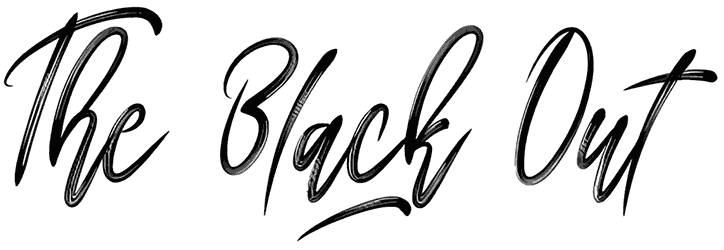
The Black Out Font
When The Black Out is here, it will not take you too long anymore to bring a fresh and organic touch all over your design. The smooth texture and natural flow of brush font make the text look distinct, modern, and creative.